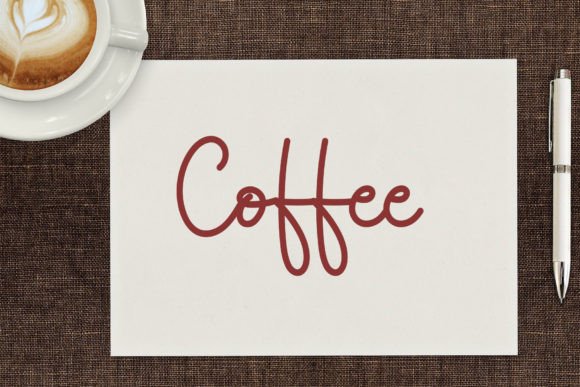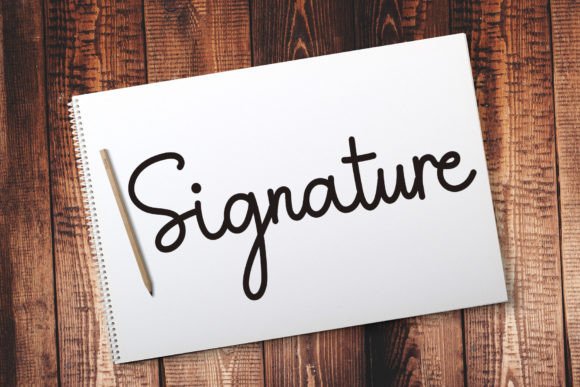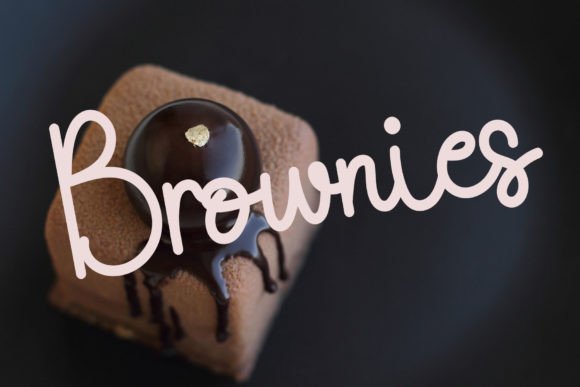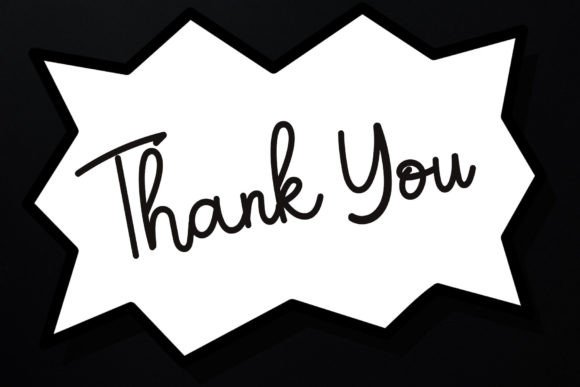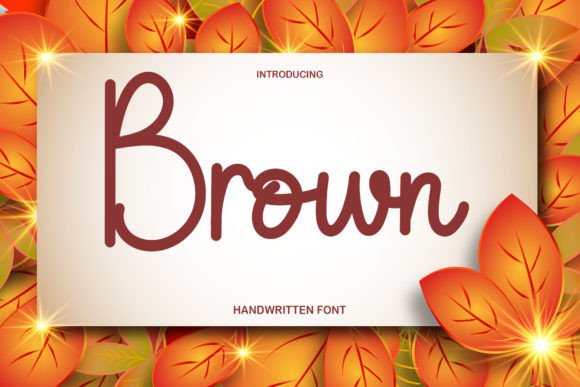
Brown Font: Elevate Your Designs with Elegance and Flair
Brown Font is a stunning handwritten font that has captured the hearts of designers and crafters alike. With its delicate, elegant, and flowing strokes, this font is perfect for adding a touch of sophistication to any design project. In this article, we’ll dive into the world of Brown Font, exploring its unique features, versatility, and the endless possibilities it offers for creative expression.
The Beauty of Brown Font
Brown Font boasts beautiful and well-balanced characters that exude a sense of refinement and poise. Each letter is carefully crafted to create a harmonious flow, making it a joy to read and behold. The font’s elegant strokes and subtle curves add a touch of whimsy, making it perfect for designs that require a dash of personality.
One of the standout features of Brown Font is its incredible versatility. Its classic and timeless design makes it an excellent match for a wide range of designs, from modern and minimalist to vintage and ornate. Whether you’re working on a logo, branding project, or social media graphics, Brown Font is sure to complement your design with ease.
With Brown Font, the creative possibilities are endless! Imagine adding it to your:
- Logos and branding projects for a touch of elegance and sophistication
- Social media graphics to make your content stand out
- Invitations and event materials for a personal and whimsical touch
- Packaging designs to add a dash of personality
- Blog and website headers to create a lasting impression
Why Designers and Crafters Love Brown Font
Designers and crafters love Brown Font for its:
- Unique and distinctive character set
- Easy readability and legibility
- Flexibility and adaptability to different design styles
- Time-saving and efficient design process
Tips for Using Brown Font Effectively
To get the most out of Brown Font, here are some expert tips:
- Pair it with bold and modern fonts for a striking contrast
- Use it as a headline font to add visual interest
- Experiment with different colors and textures to add depth and dimension
- Mix and match it with other handwritten fonts for a unique look
| Font Name | Brown Font |
| Author | asmunin78 |
Brown Font is a true gem in the world of typography. Its delicate, elegant, and flowing design makes it perfect for designers and crafters looking to add a touch of sophistication to their projects. With its versatility, creative possibilities, and ease of use, Brown Font is sure to become a staple in your design toolkit. So why wait? Add Brown Font to your most creative ideas and watch them come alive!